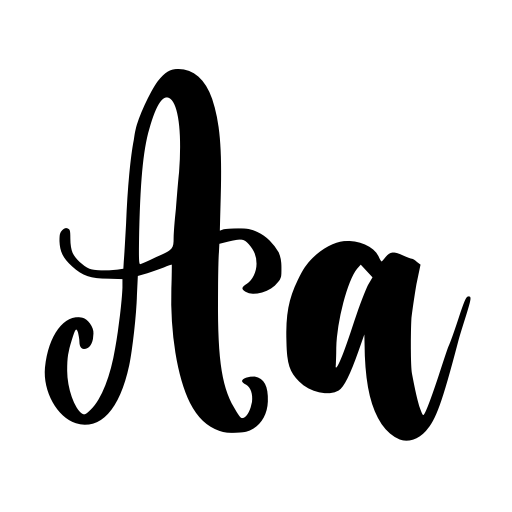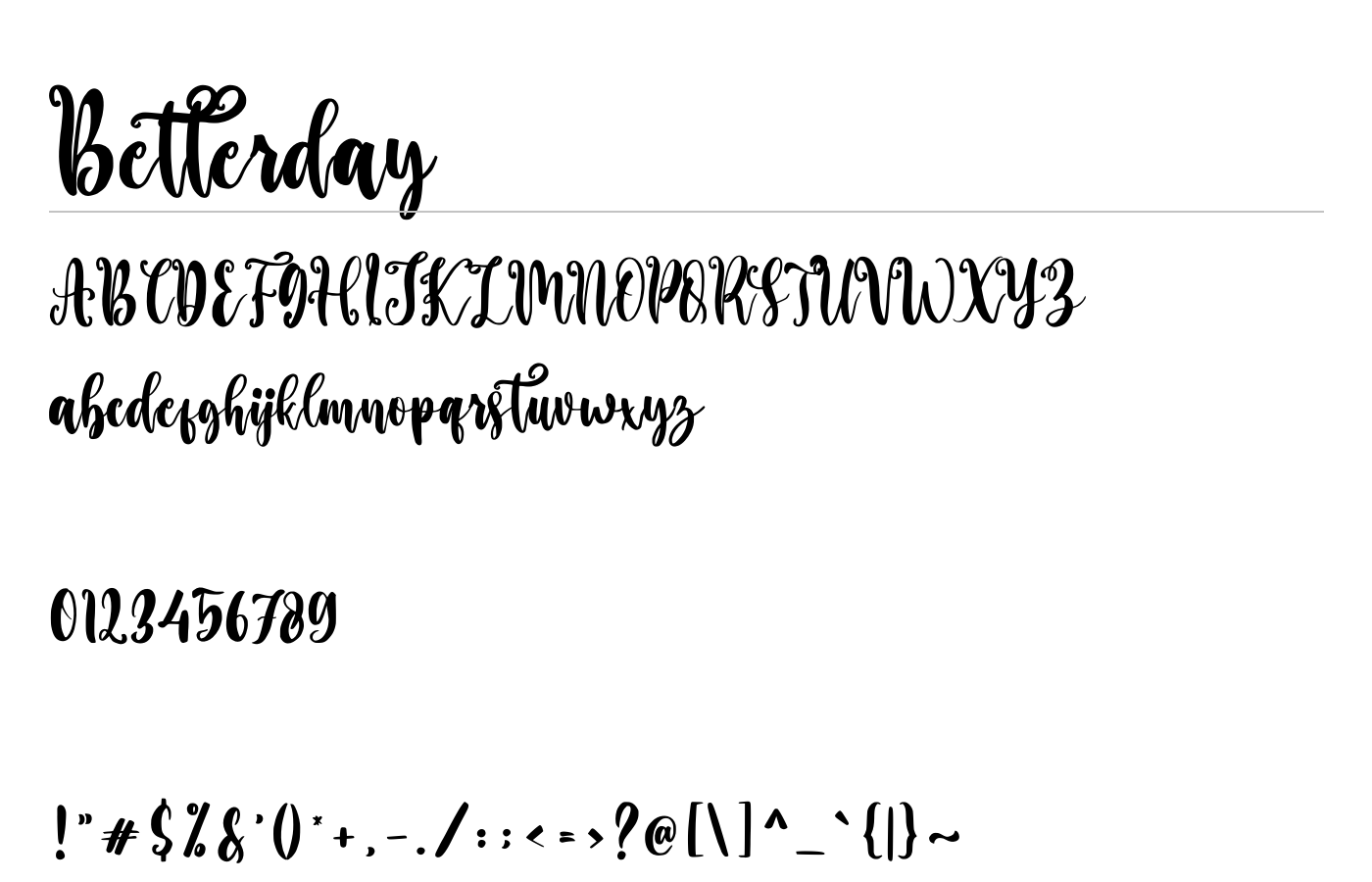
Betterday is a lively script font with playful, hand-lettered charm and bold strokes that convey warmth and friendliness. Its decorative swashes and unique letterforms make it perfect for branding, invitations, and creative headlines that seek a personal, energetic touch. This font shines in projects that aim to express joy and creativity with a casual yet stylish flair.
Betterday Font